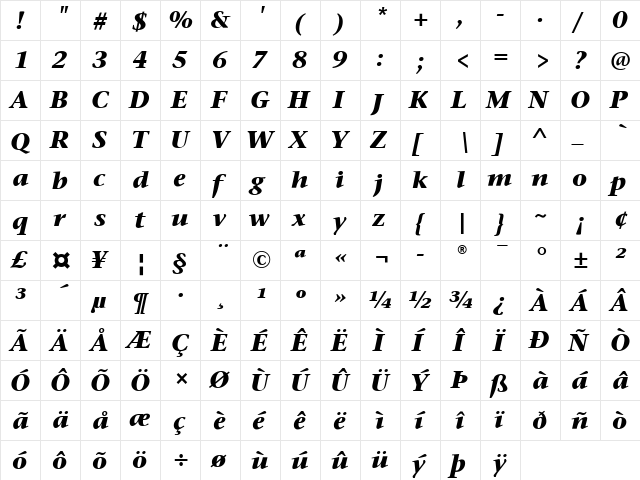
Stone Serif ITC Medium Bold Italic Font Preview
Design Context for Stone Serif ITC Medium Typeface
Stone Serif ITC Medium carries the refined structure of traditional serif typography, with bracketed terminals and considered proportions that communicate credibility and craft. The dynamic lean of this cut emphasises speed and emphasis in any layout. The heavy weight commands attention and anchors typographic hierarchies.